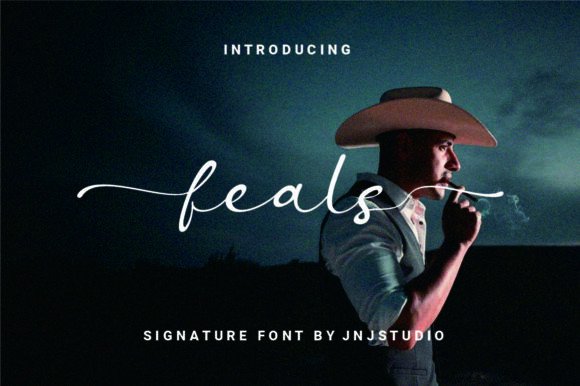
Introducing Feals Font: The Epitome of Elegance and Sophistication
In the realm of typography, few fonts manage to capture the essence of elegance and authenticity as effortlessly as Feals Font. This sophisticated signature-style font is meticulously designed to mimic natural handwriting, boasting smooth, flowing strokes that exude a refined touch. The delicate yet expressive curves of Feals make it an ideal choice for a myriad of design applications, ranging from branding and logos to invitations and personal signatures.
Key Features of Feals Font
- Elegant and Sophisticated Design: Feals Font is crafted to provide a luxurious feel to any design project. Its smooth, flowing strokes are reminiscent of natural handwriting, adding a personal touch to digital and print materials.
- Versatile Application: This font is incredibly versatile, making it suitable for various design needs. Whether you’re working on luxury branding, heartfelt messages, or personal projects, Feals can elevate your design to new heights.
- Expressive Curves: The delicate curves of Feals add a layer of sophistication and elegance to any text. These curves are carefully designed to make every word feel personal and exclusive.
- Modern and Stylish Appeal: Feals exudes a sense of warmth and personality, thanks to its modern and stylish appeal. This makes it perfect for designers looking to add a touch of class and sophistication to their work.
Design Applications of Feals Font
Feals Font’s versatility is one of its standout features, making it suitable for a wide range of design applications. Here are some of the key areas where Feals can make a significant impact:
- Branding and Logos: For businesses looking to establish a luxurious and elegant brand identity, Feals can be a game-changer. Its sophisticated design can help brands stand out in a crowded market.
- Invitations and Events: Whether it’s a wedding invitation, a corporate event, or a product launch, Feals can add a touch of elegance and sophistication to your event communications.
- Personal Signatures: For individuals looking to add a personal touch to their digital communications, Feals can be used to create unique and stylish personal signatures.
- Packaging and Product Design: Feals can also be used in packaging and product design to add a luxurious feel to products. This can be particularly effective for high-end brands looking to emphasize their premium quality.
Typography Tips for Using Feals Font
To get the most out of Feals Font, here are some typography tips to keep in mind:
- Pair with Neutral Fonts: When using Feals in a design, it’s best to pair it with neutral fonts that don’t compete for attention. This will help maintain the elegance and sophistication of Feals.
- Adjust Font Sizes: To create visual hierarchy, adjust font sizes to emphasize certain words or phrases. This can help draw attention to key messages.
- Utilize White Space: Don’t be afraid to use white space around text to make Feals stand out. White space can help create a clean and elegant design.
- Experiment with Colors: While Feals looks great in black, don’t be afraid to experiment with colors. Soft pastels or metallic colors can add a touch of luxury to your design.
In conclusion, Feals Font is a sophisticated signature-style font that embodies elegance and authenticity. Its smooth, flowing strokes and delicate curves make it perfect for a variety of design applications, from branding and logos to invitations and personal signatures. With its modern and stylish appeal, Feals can add a touch of warmth and personality to any design project. Whether you’re a designer looking to elevate your work or a business seeking to establish a luxurious brand identity, Feals Font is an excellent choice.